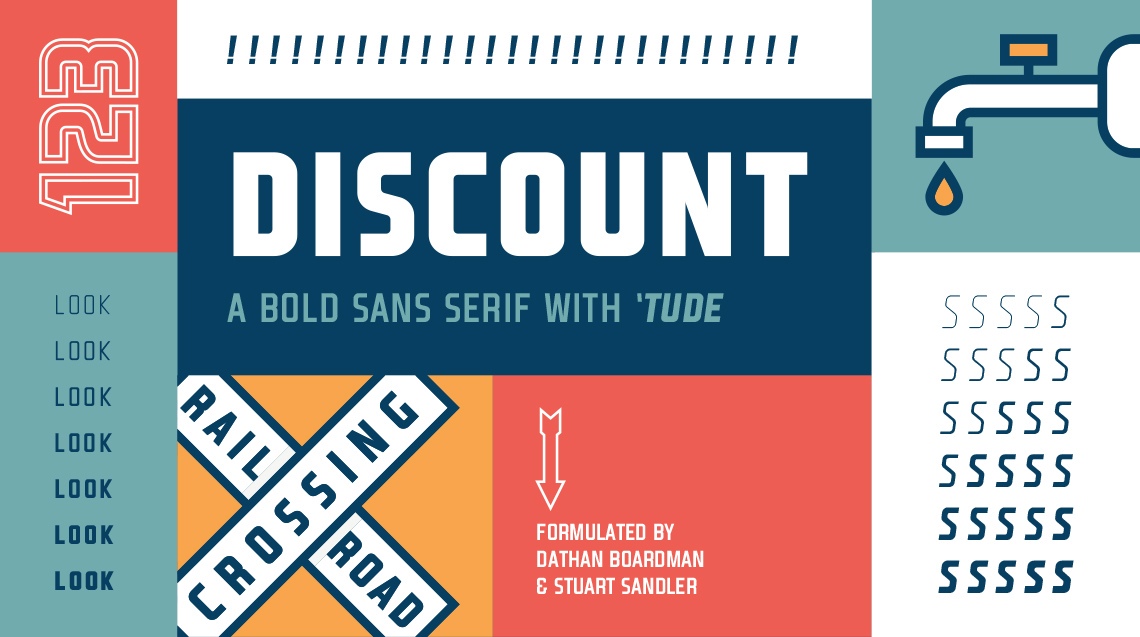
Discount Font
This attention-grabbing display typeface is perfect for retail promotions, sale advertisements, clearance event signage, promotional pricing displays, discount store branding, bargain marketing campaigns, flash sale graphics, and value-oriented commercial communications.
What makes this font exciting is its bold, eye-catching design that instantly communicates savings and special offers through dynamic letterforms and impactful visual presence. The energetic character creates immediate urgency and excitement around promotional messaging, while the clear, readable construction ensures pricing information and sale details are communicated effectively across all retail environments and advertising formats.
The Discount Font family includes regular, bold, and condensed weights, along with promotional symbols, percentage signs, and sale-focused ornaments that enhance the font's commercial appeal for comprehensive retail marketing applications.
The compelling personality of Discount Font emerges through its urgent, action-oriented character that captures the excitement of finding great deals and exceptional value. Each letterform displays the dynamic energy and competitive spirit found in successful retail environments, creating visual motivation that encourages immediate purchasing decisions. This commercial approach makes it particularly suitable for Black Friday campaigns, clearance centers, flash sale websites, and promotional retail chains requiring typography that communicates affordability, value, and the thrill of smart shopping.
Professional marketers will find this font invaluable for creating high-converting promotional campaigns that maximize customer engagement and sales performance. From newspaper sale advertisements to digital promotional banners, from retail window displays to e-commerce discount graphics, Discount Font maintains its persuasive character while adapting to diverse commercial applications. The font's comprehensive character set includes currency symbols, percentage indicators, and promotional decorative elements that enhance sales messaging, ensuring complete design flexibility for retailers dedicated to providing exceptional value, driving customer traffic, and creating memorable shopping experiences across all discount retail and promotional marketing communications.